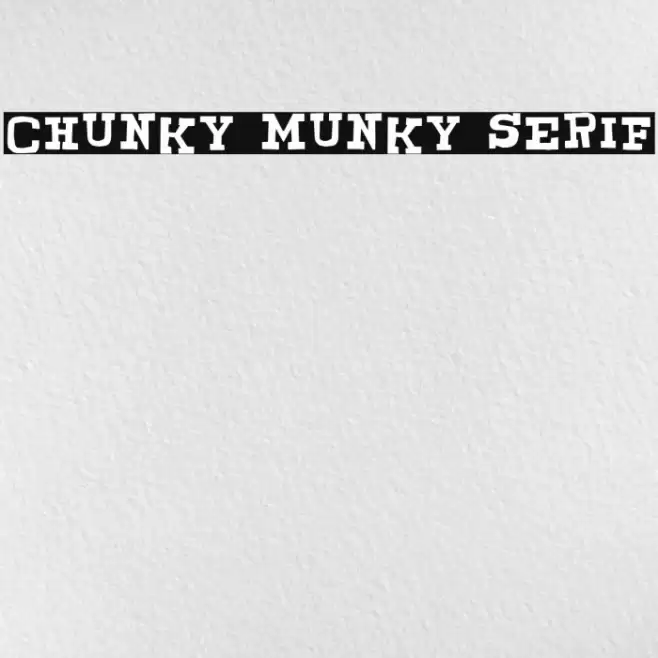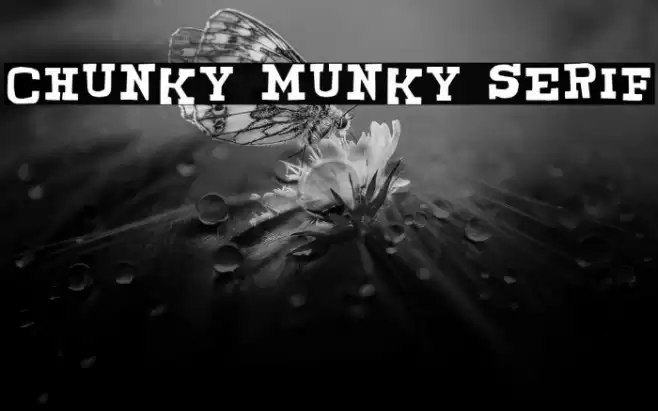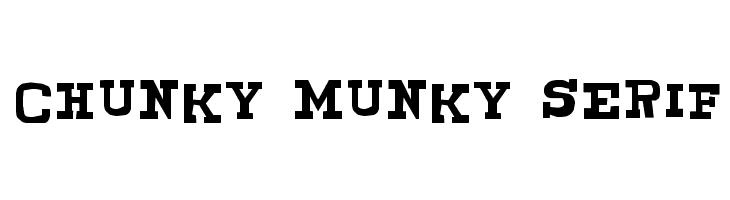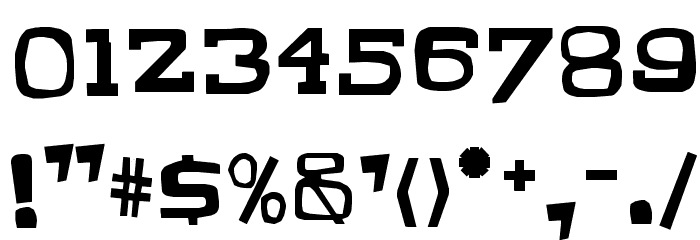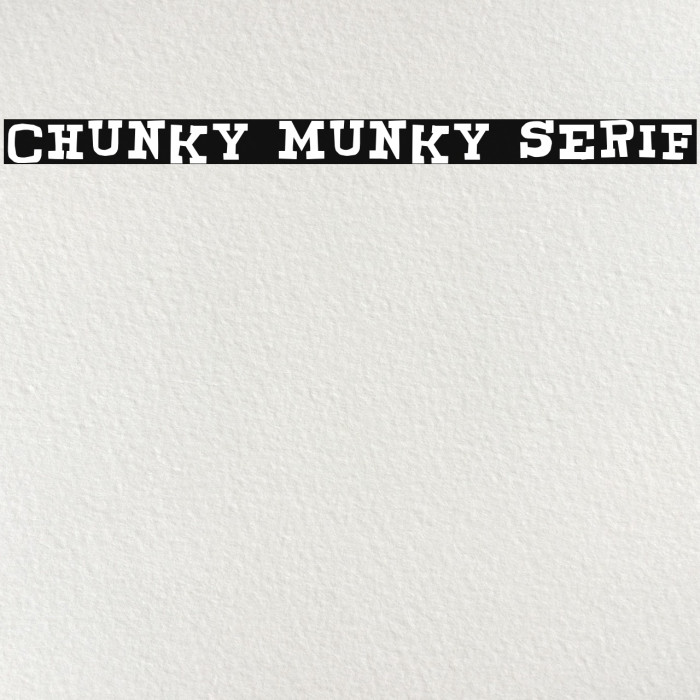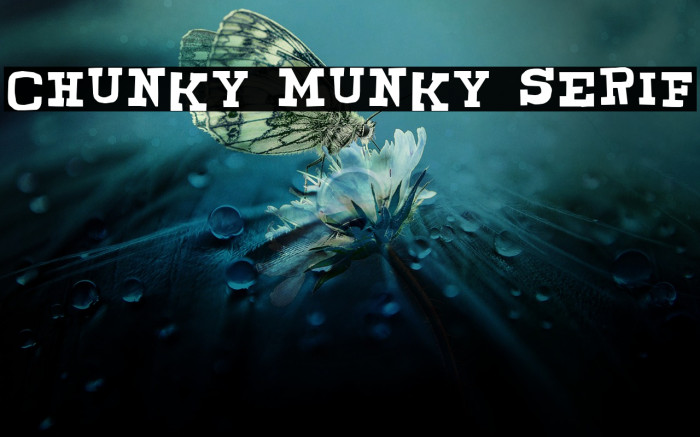
CHUNKY MUNKY SERIF Font
CHUNKY MUNKY SERIF Description
This font features a bold and playful design with a strong presence, characterized by thick, blocky serifs and a slightly condensed structure. The uppercase letters are robust and commanding, while the lowercase letters maintain a consistent weight, offering a harmonious balance. The numerals are equally bold, ensuring legibility and impact. Special characters are designed with the same chunky aesthetic, making them stand out. This font is ideal for projects that require a strong, eye-catching typeface with a touch of whimsy.
A bold, playful serif font with thick, blocky serifs and a slightly condensed style from Cartoon fonts.
- Proposed Projects: Ideal for branding, posters, headlines, and any design needing a bold, playful touch.